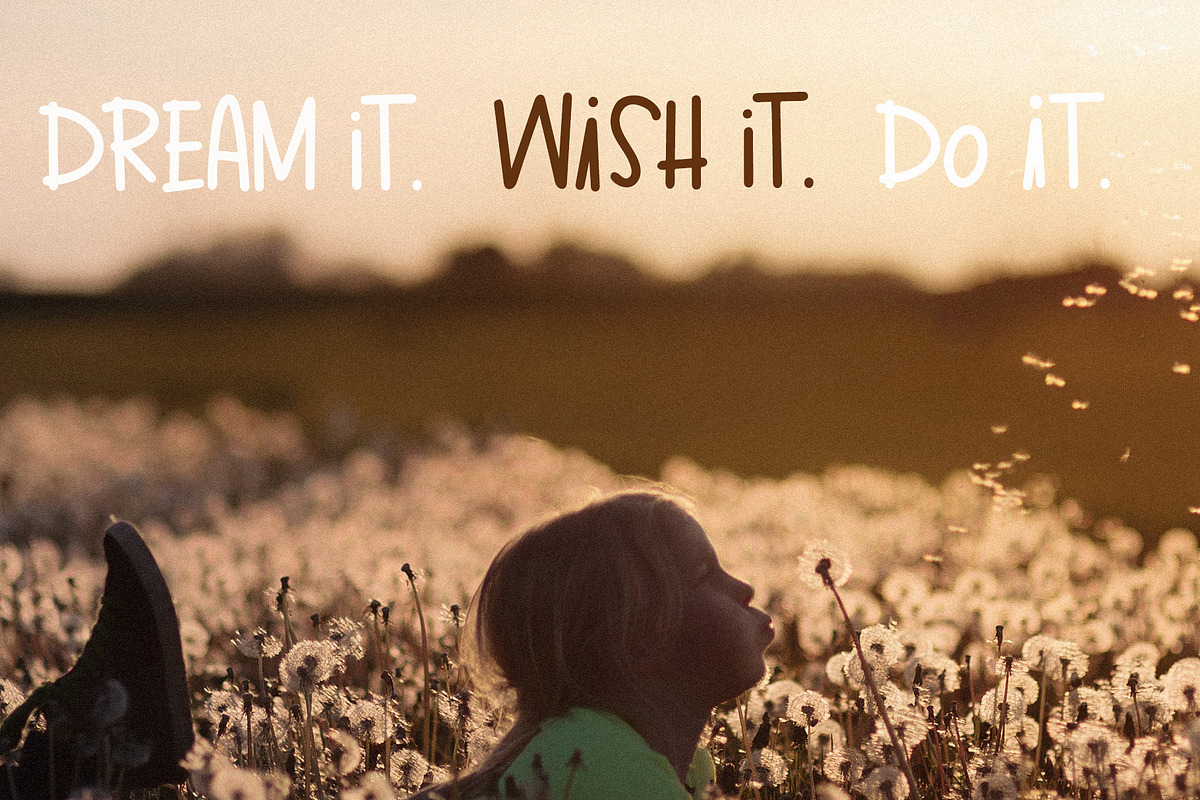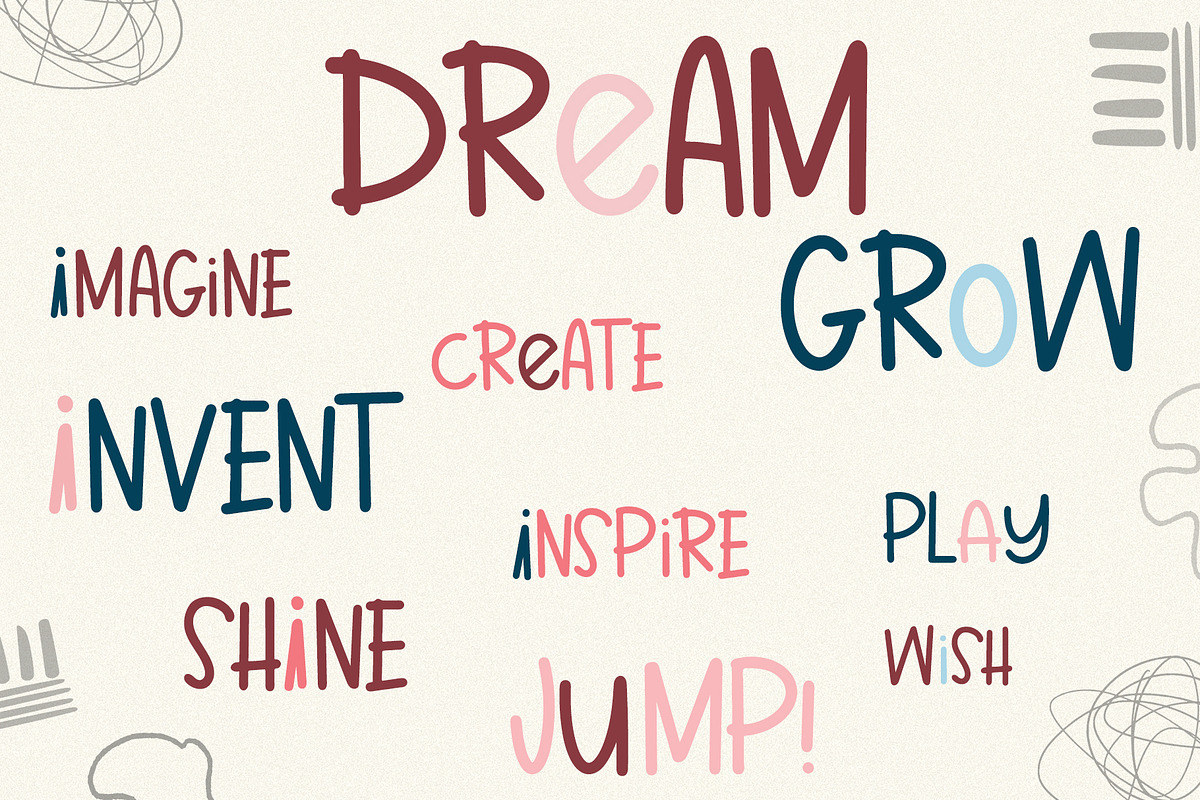
Playdate All Caps Font
Playdate is a fun and quirky handwritten font, easy to read, and perfect for logo, cards, posters, baby clothes, and more. This font creates a fun and happy look!
- Features include: Uppercase, alternatives, numbers, and punctuation.
Playdate All Caps Font by Sweet Fig fits naturally into Branding, posters, packaging, typography.